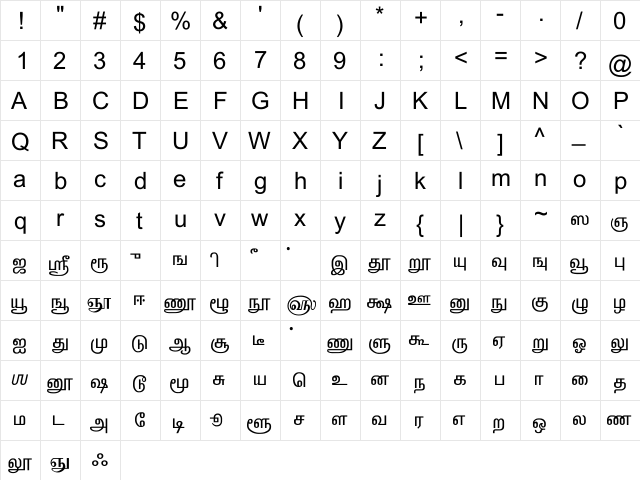
IndoWeb-Tamil-Lakshman Regular
Design Context for IndoWeb-Tamil-Lakshman Typeface
IndoWeb-Tamil-Lakshman offers clean, dependable letterforms without strong stylistic allegiance, making it a practical choice for designers who need flexibility.